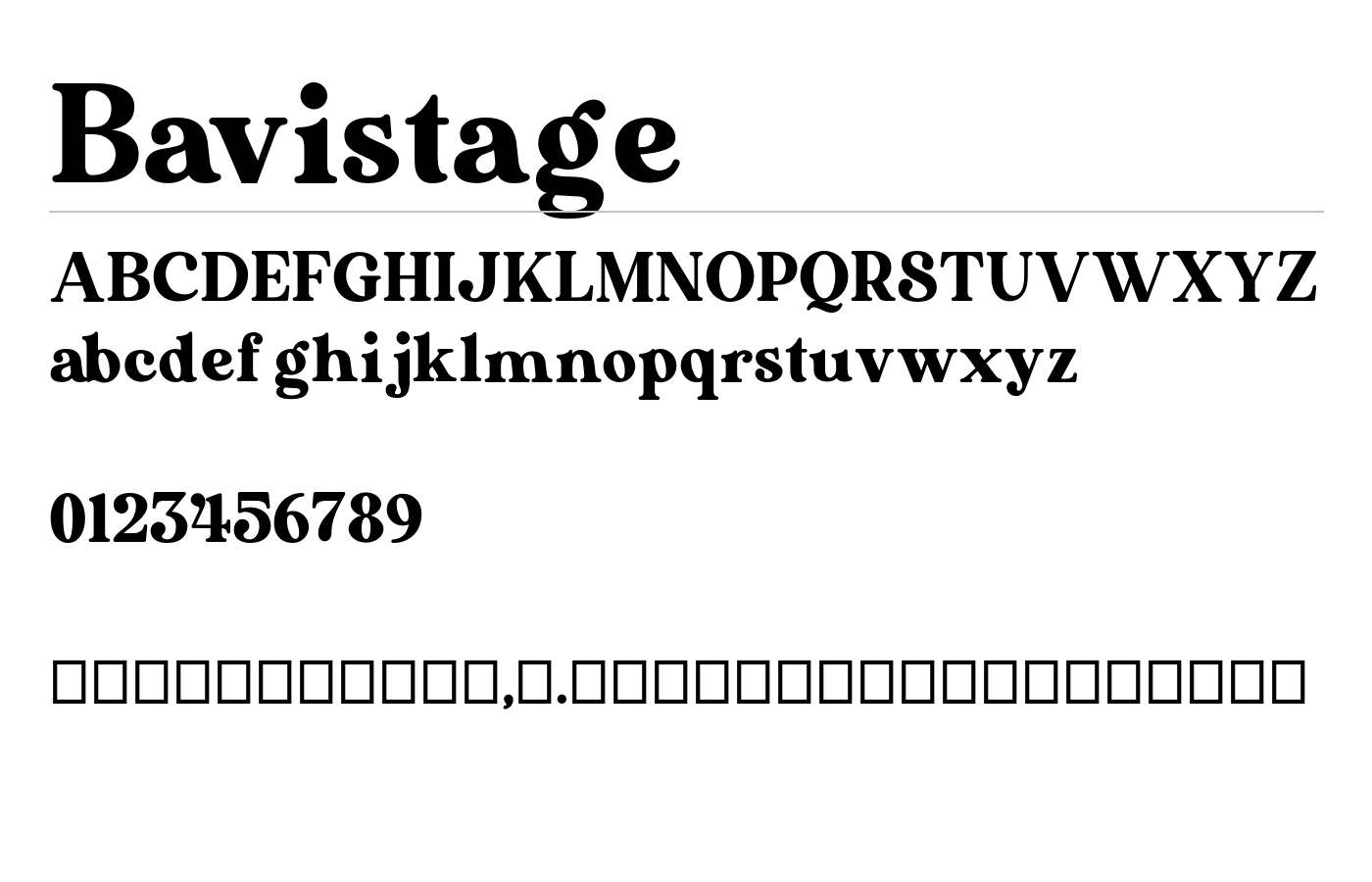
Bavistage is a bold serif font with a classic yet strong presence, featuring high contrast between thick and thin strokes and bracketed serifs that add a touch of elegance. Its balanced proportions and distinct double-story letterforms make it ideal for headlines, logos, and editorial uses where a sense of tradition and authority is desired. This font works well in branding and design projects that seek a timeless, confident, and refined look.
Bavistage Font
About Bavistage Font